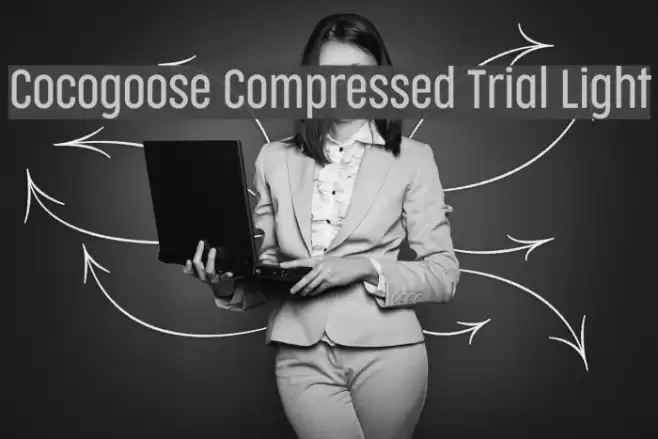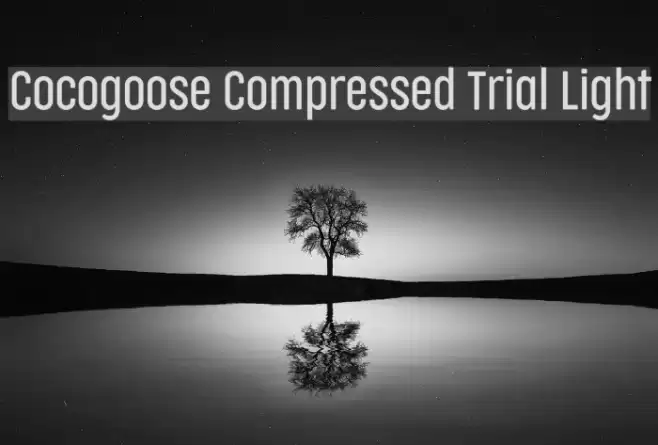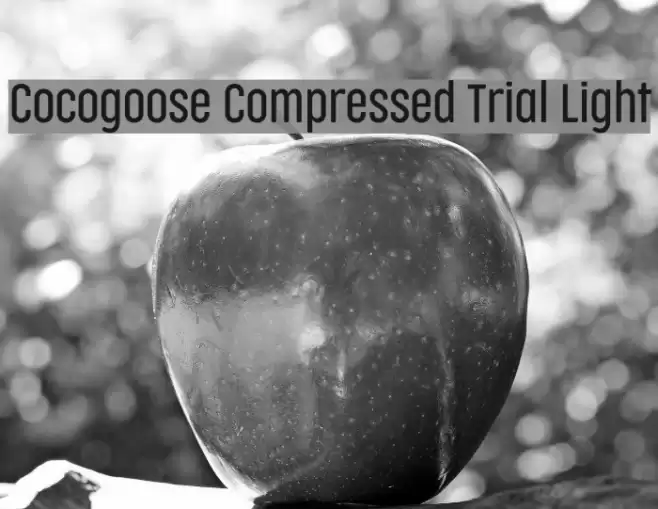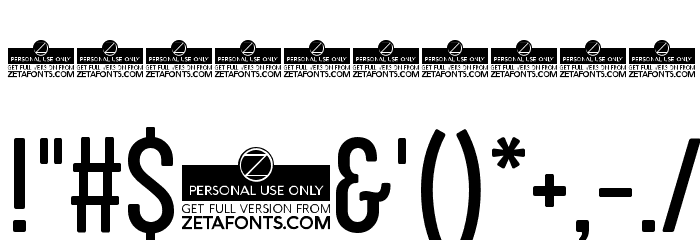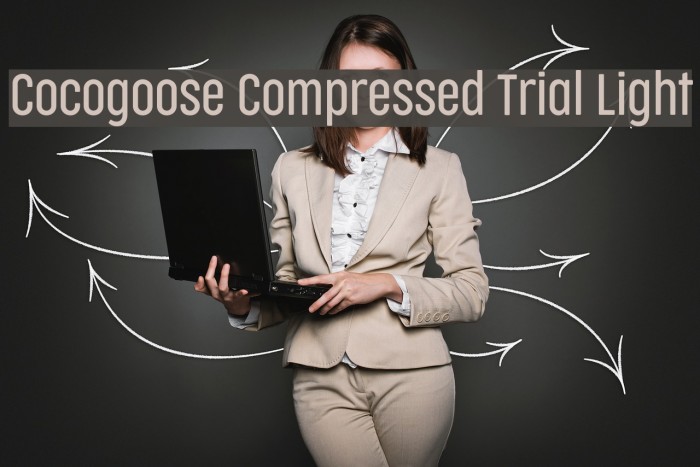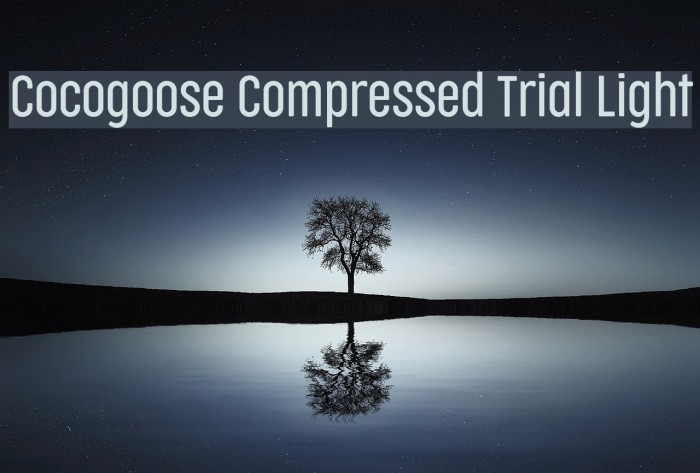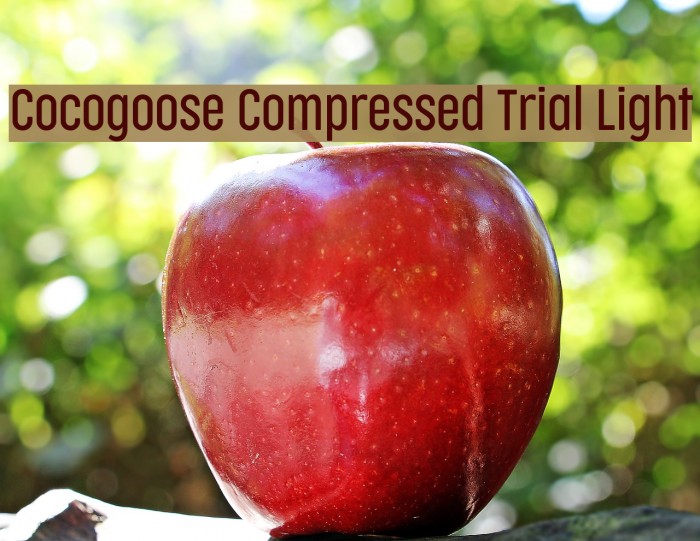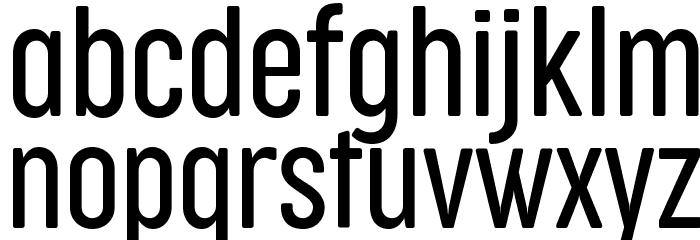
Cocogoose Compressed Trial Light Font
Cocogoose Compressed Trial Light Description
This font features a modern and sleek design with a compressed structure, making it ideal for space-saving applications. The characters are tall and narrow, with a consistent stroke width that gives it a clean and uniform appearance. The uppercase letters are bold and impactful, while the lowercase letters maintain a similar style with slightly softer edges. The numerals and special characters are designed to match the overall aesthetic, ensuring a cohesive look across all text elements. This font is perfect for contemporary designs that require a touch of elegance and sophistication.
A modern, compressed font with a sleek and uniform design from Uncategorized fonts.
- Proposed Projects: Ideal for branding, advertising, and editorial design where space is limited but impact is needed.